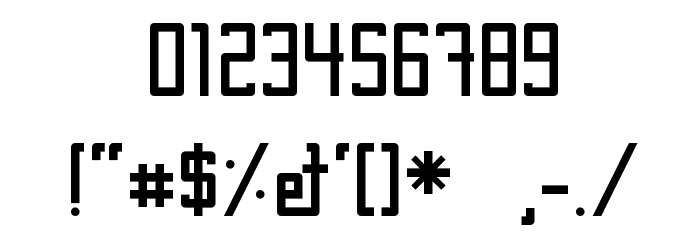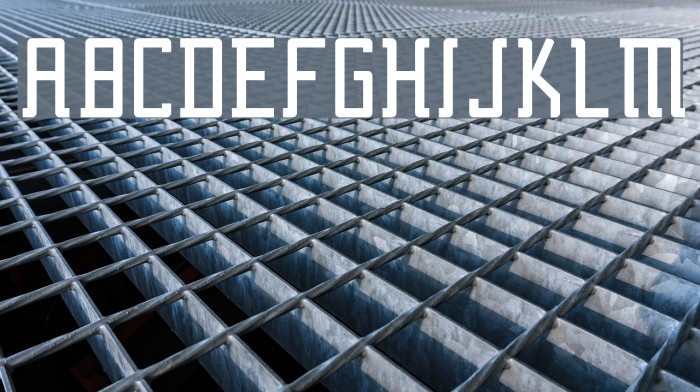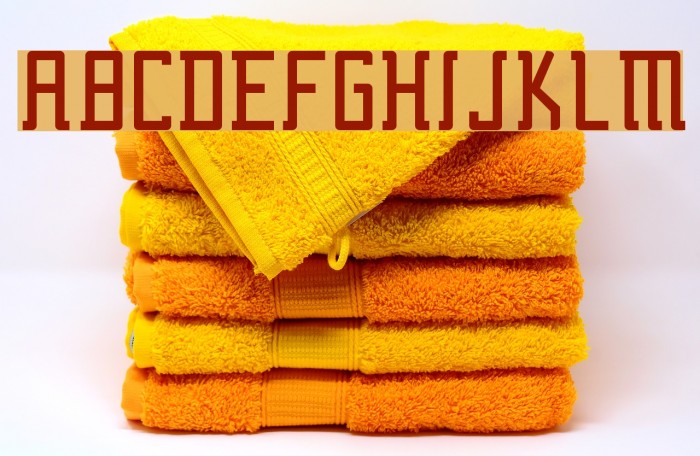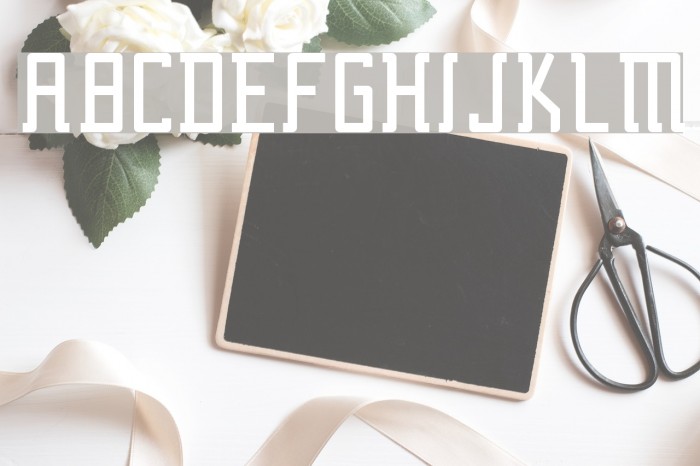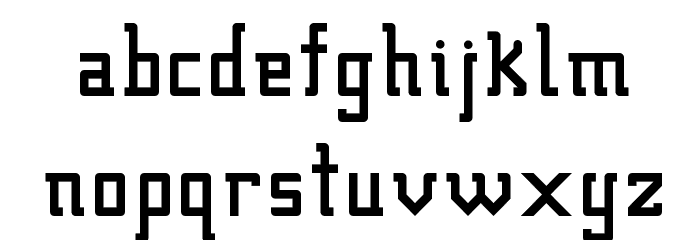
Fcraft Sidarta Font
This font features a geometric and angular design, characterized by its bold, block-like structure. The uppercase letters have a uniform height with sharp edges and a distinct, modern appearance. The lowercase letters maintain the same angular style, providing a cohesive look across different cases. Numbers are equally bold and geometric, ensuring readability and consistency. Special characters are designed to match the overall aesthetic, making this font suitable for various applications that require a strong visual impact.
A bold, geometric font with angular, block-like characters.
• Proposed Projects: Ideal for branding, posters, headlines, and any design project that requires a modern and impactful typeface.